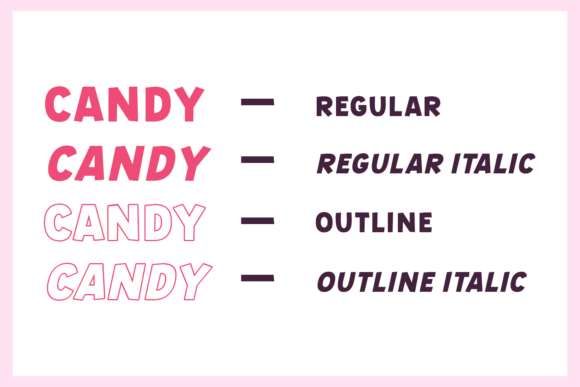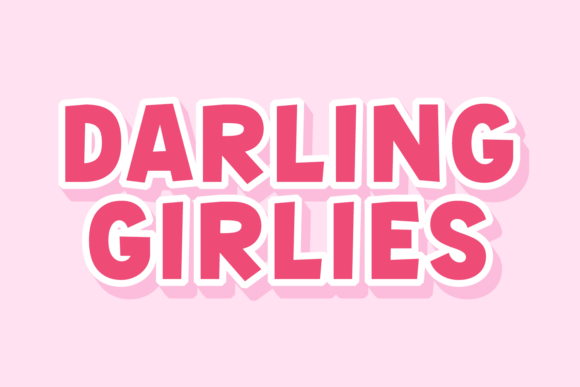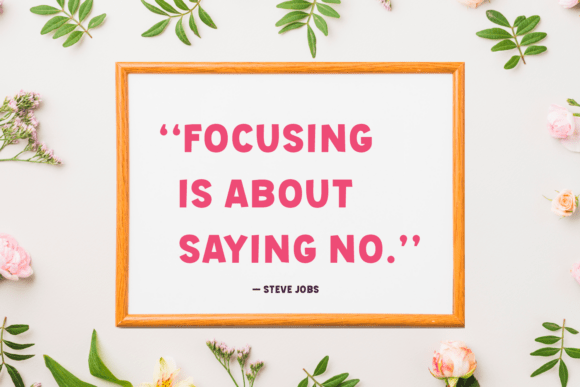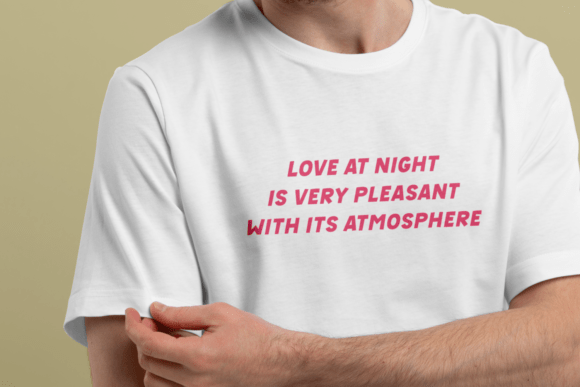
Introduction to Only Night Font
Only Night is a versatile font and is suitable for children’s themed projects as well as cartoon branding.
This font is attractive because it can be used as a logo or as a sans serif font With a cute and cheerful feel, this font is ideal for posters, and sublimation projects.
Why Choose Only Night Font?